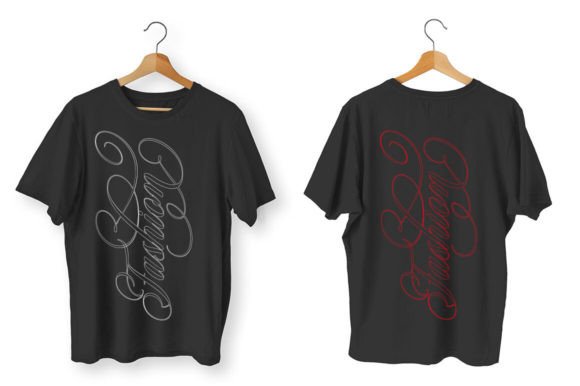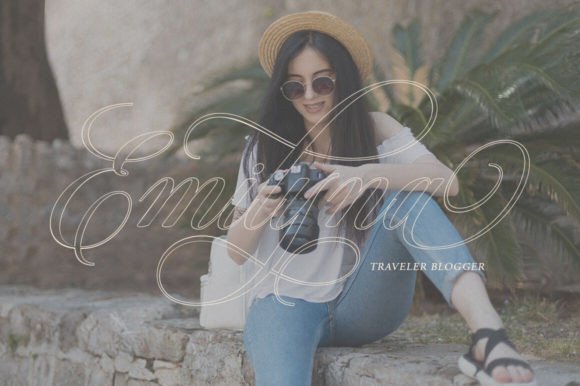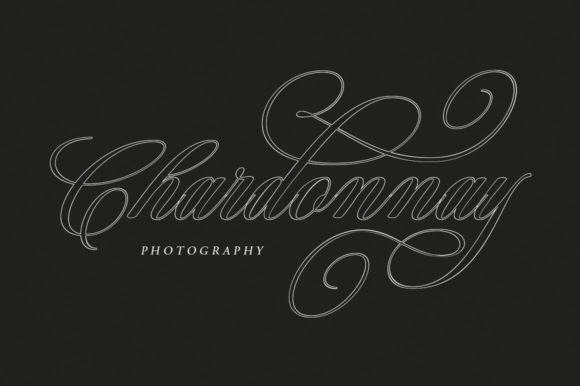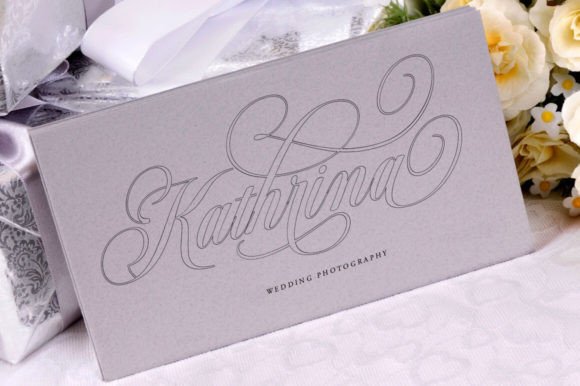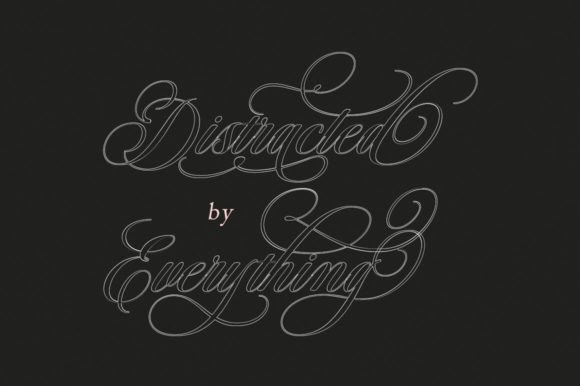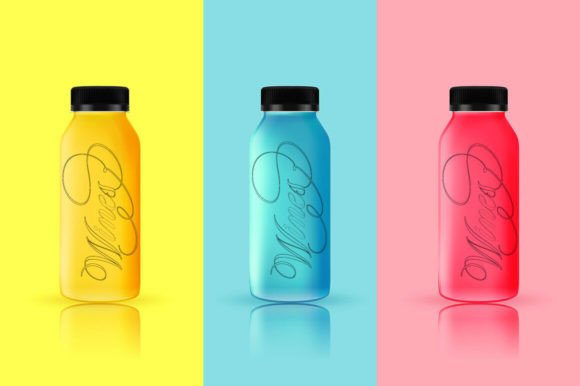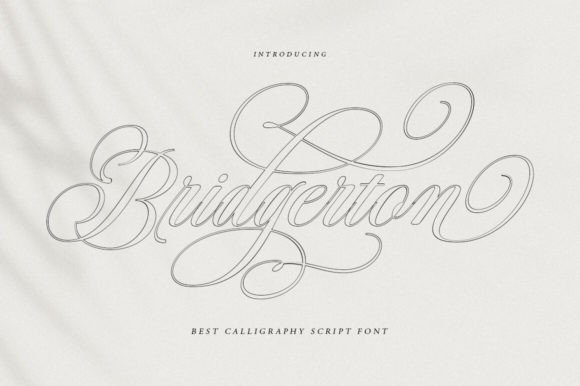
Bridgerton Outline Font: Elevate Your Designs with Elegance and Sophistication
In the world of typography, few fonts manage to capture the essence of elegance and sophistication as effectively as Bridgerton Outline. This exquisite calligraphy font is a masterful blend of classic decorative copper script and modern flair, making it an ideal choice for designers and crafters seeking to add a touch of luxury to their projects. With its smooth, clean lines, and feminine, sensual appeal, Bridgerton Outline Font is sure to leave a lasting impression.
The Characteristics of Bridgerton Outline Font
Bridgerton Outline Font boasts a unique set of characteristics that set it apart from other fonts. Its most notable feature is the exquisite changing characters, which add a level of sophistication and elegance to any design. The font’s classic decorative copper script style has been updated with a modern touch, making it versatile and suitable for a wide range of applications. The high level of detail in the font’s design ensures that it remains elegant and refined, even at large sizes.
One of the standout features of Bridgerton Outline Font is its smooth, clean lines, which make it incredibly easy to read. The font’s luxurious letter connections add to its appeal, creating a sense of fluidity and continuity that is hard to find in other fonts. Additionally, the font offers several viable style alternatives for many letters, allowing designers to experiment and find the perfect fit for their projects.
Uses for Bridgerton Outline Font
Bridgerton Outline Font is an incredibly versatile font that can be used in a wide range of applications. Its classic style makes it an excellent choice for formal events and projects, such as:
- Invitations: Whether it’s a wedding, formal gala, or corporate event, Bridgerton Outline Font is the perfect choice for creating elegant and sophisticated invitations.
- Labels: Add a touch of luxury to your product labels with Bridgerton Outline Font, making them stand out on store shelves.
- Restaurant menus: Create a high-end dining experience with Bridgerton Outline Font, perfect for fine dining restaurants and upscale eateries.
- Logos: Establish your brand as elegant and sophisticated with Bridgerton Outline Font, ideal for luxury brands and high-end businesses.
- Fashion and makeup: Use Bridgerton Outline Font to add a touch of glamour to your fashion or makeup branding, packaging, and marketing materials.
- Stationery: Elevate your stationery with Bridgerton Outline Font, perfect for creating elegant letters, notecards, and journals.
- Novels and magazines: Add a touch of sophistication to your book or magazine covers with Bridgerton Outline Font, making them stand out on bookshelves.
- Greeting and wedding cards: Create beautiful and elegant cards with Bridgerton Outline Font, perfect for special occasions.
- Packaging: Use Bridgerton Outline Font to add a touch of luxury to your product packaging, making it a standout on store shelves.
- Advertising: Whether it’s a print ad, billboard, or digital banner, Bridgerton Outline Font is the perfect choice for creating eye-catching and sophisticated advertising materials.
| Font Name | Bridgerton Outline Font |
| Author | hrzstudio92 |
Bridgerton Outline Font is an exceptional calligraphy font that offers a unique blend of elegance, sophistication, and versatility. With its smooth, clean lines, luxurious letter connections, and exquisite changing characters, it’s the perfect choice for designers and crafters seeking to add a touch of luxury to their projects. Whether you’re working on a formal event, branding, or marketing materials, Bridgerton Outline Font is sure to impress. So why settle for ordinary fonts when you can elevate your designs with the elegance and sophistication of Bridgerton Outline Font?
In conclusion, Bridgerton Outline Font is a must-have for any designer or crafter looking to add a touch of luxury and sophistication to their projects. With its versatility, elegance, and technical ease of use, it’s an excellent addition to any design arsenal. So go ahead, explore the possibilities of Bridgerton Outline Font, and discover a world of elegance and sophistication for yourself.